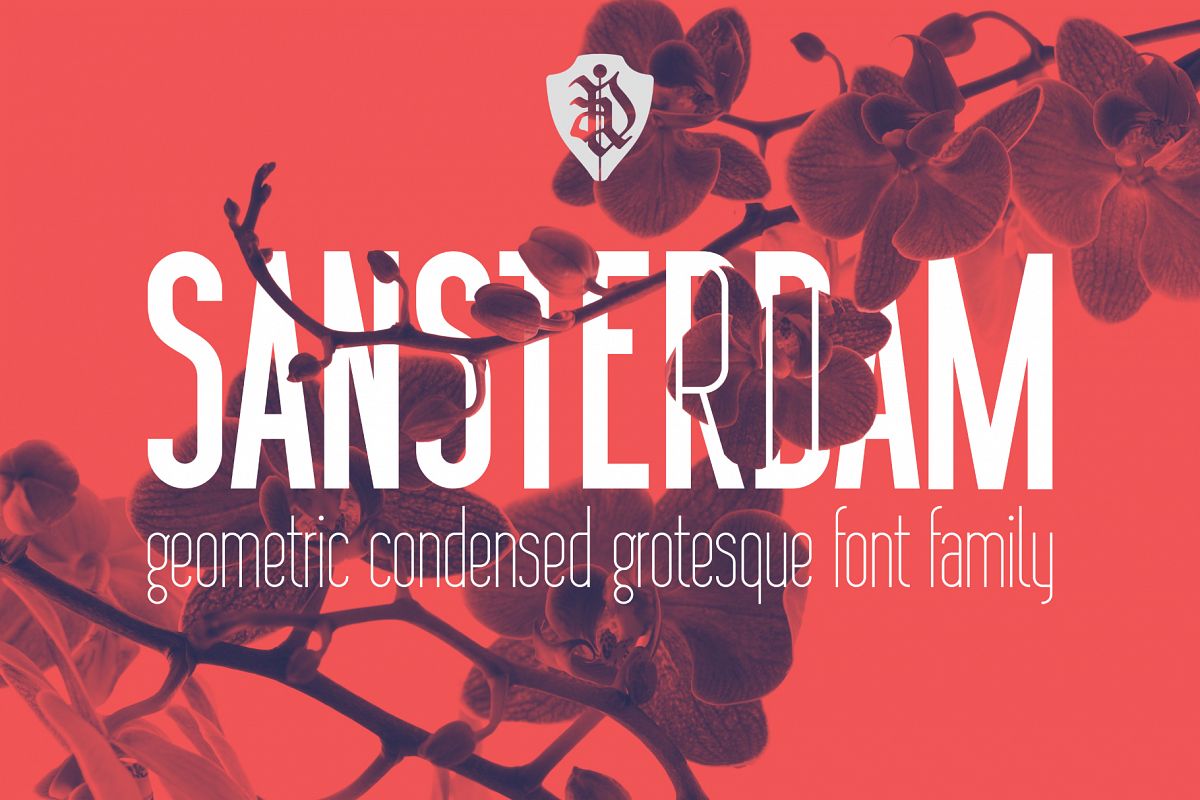
Sansterdam Bold and Thin
Sansterdam is a modern geometric condenced grotesque font family.
It's great for titles, posters, logos. Condensed font allows to include more information in one line.
Also Sansterdam has special Deco version with circle uppercase letters and oldstyle numbers for vore vintage feeling.
Font looks amazing as alone words and as full text blocks. Also it good for bright captions and unforgettable logos.